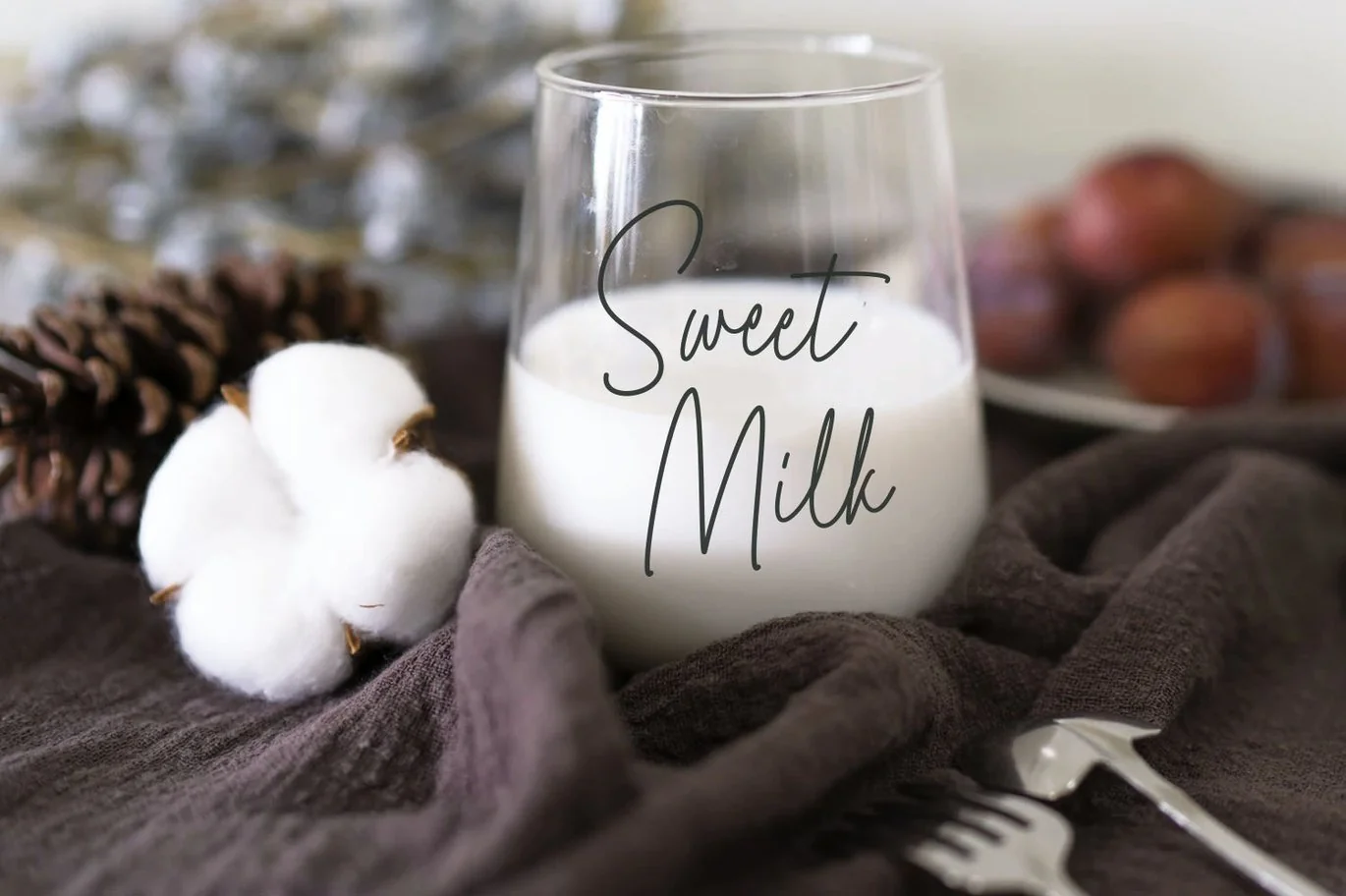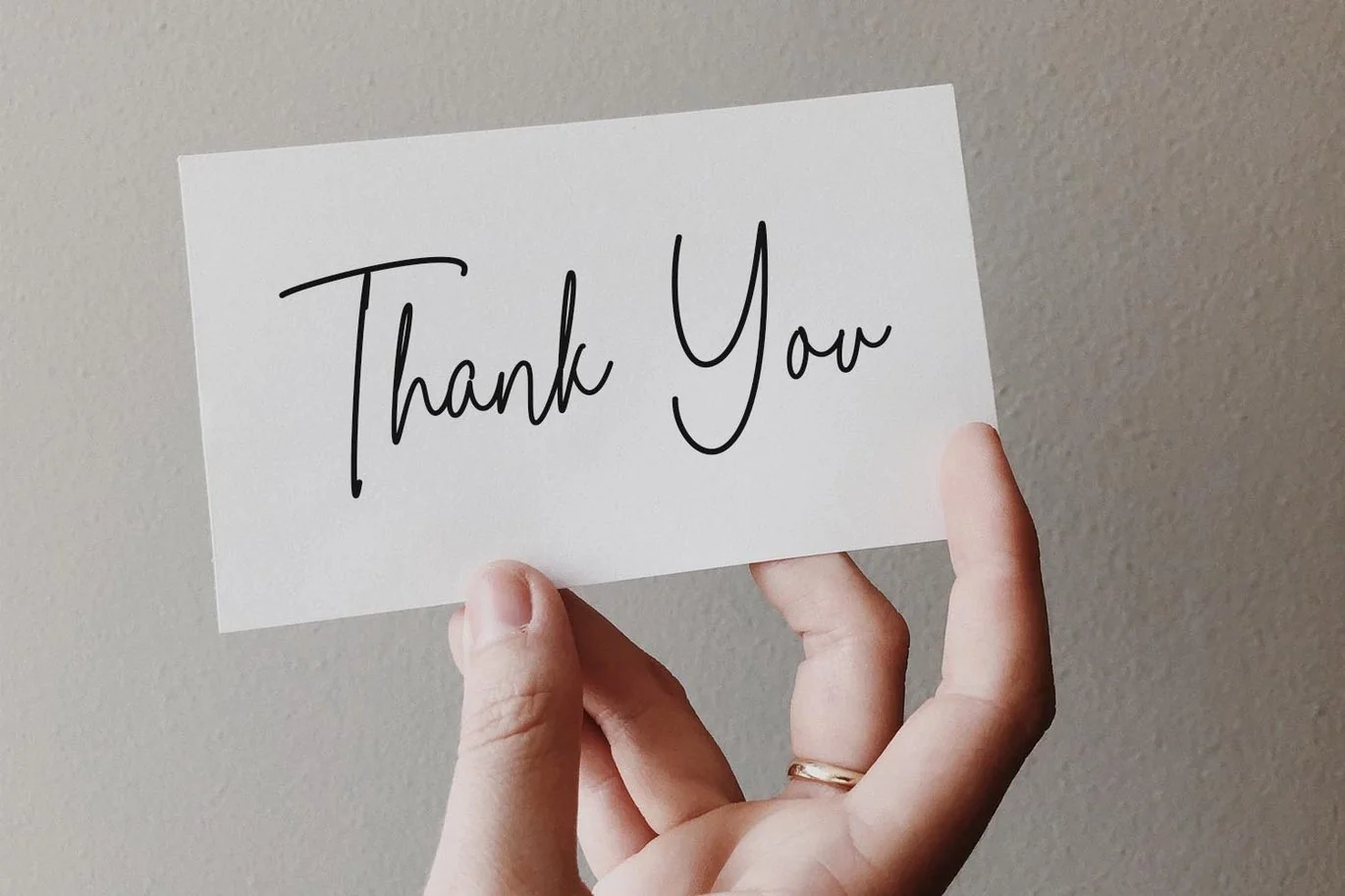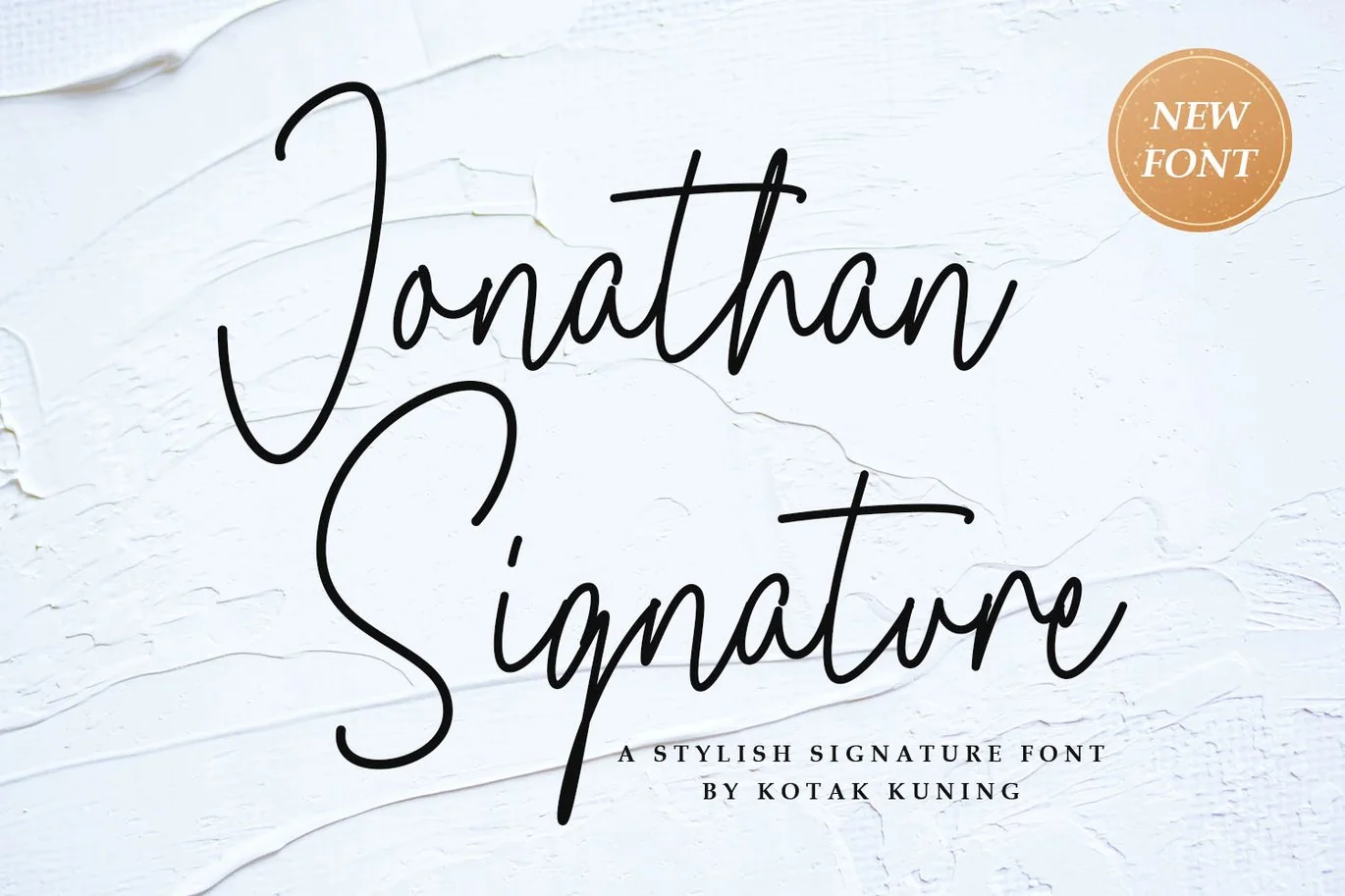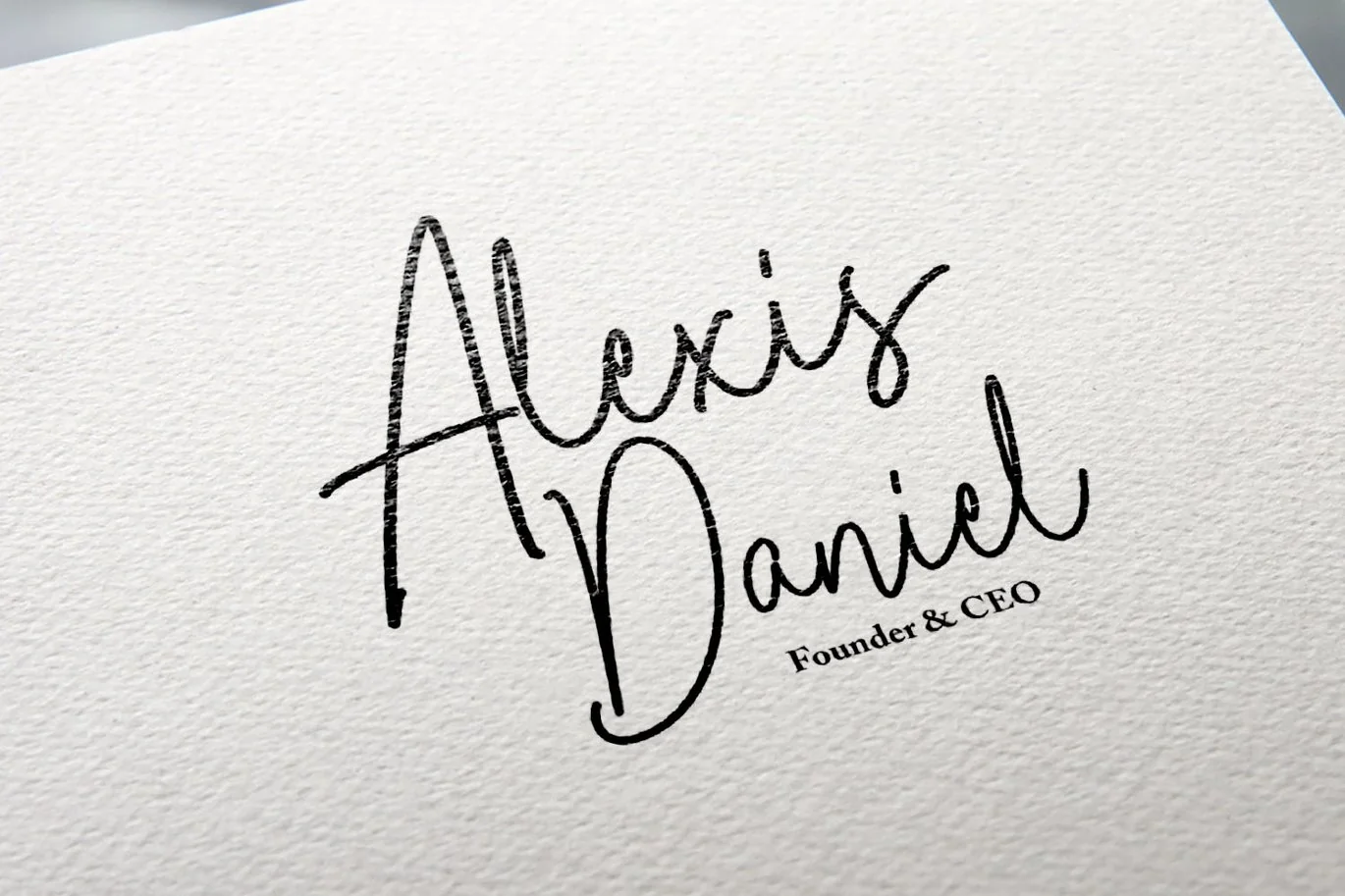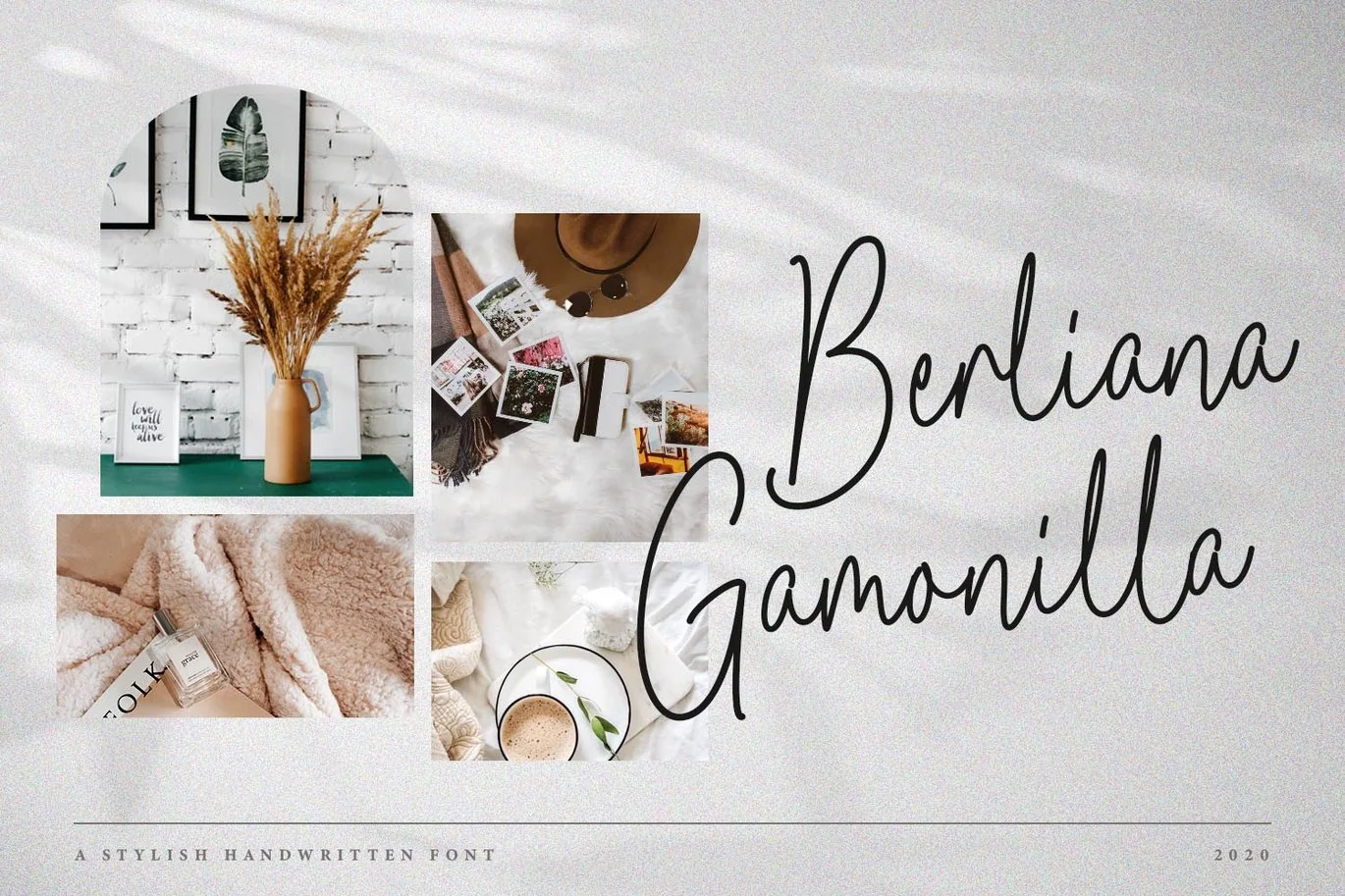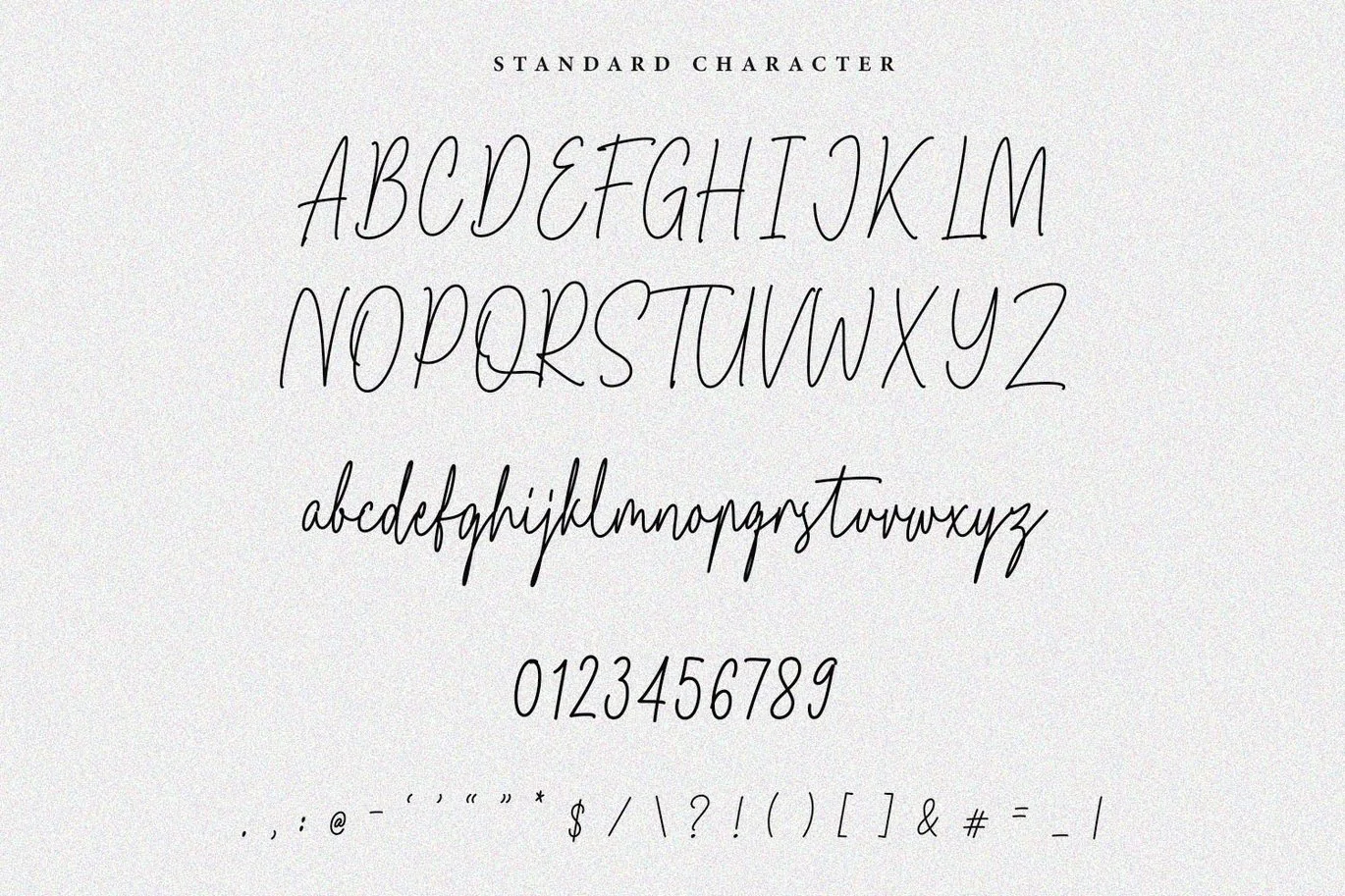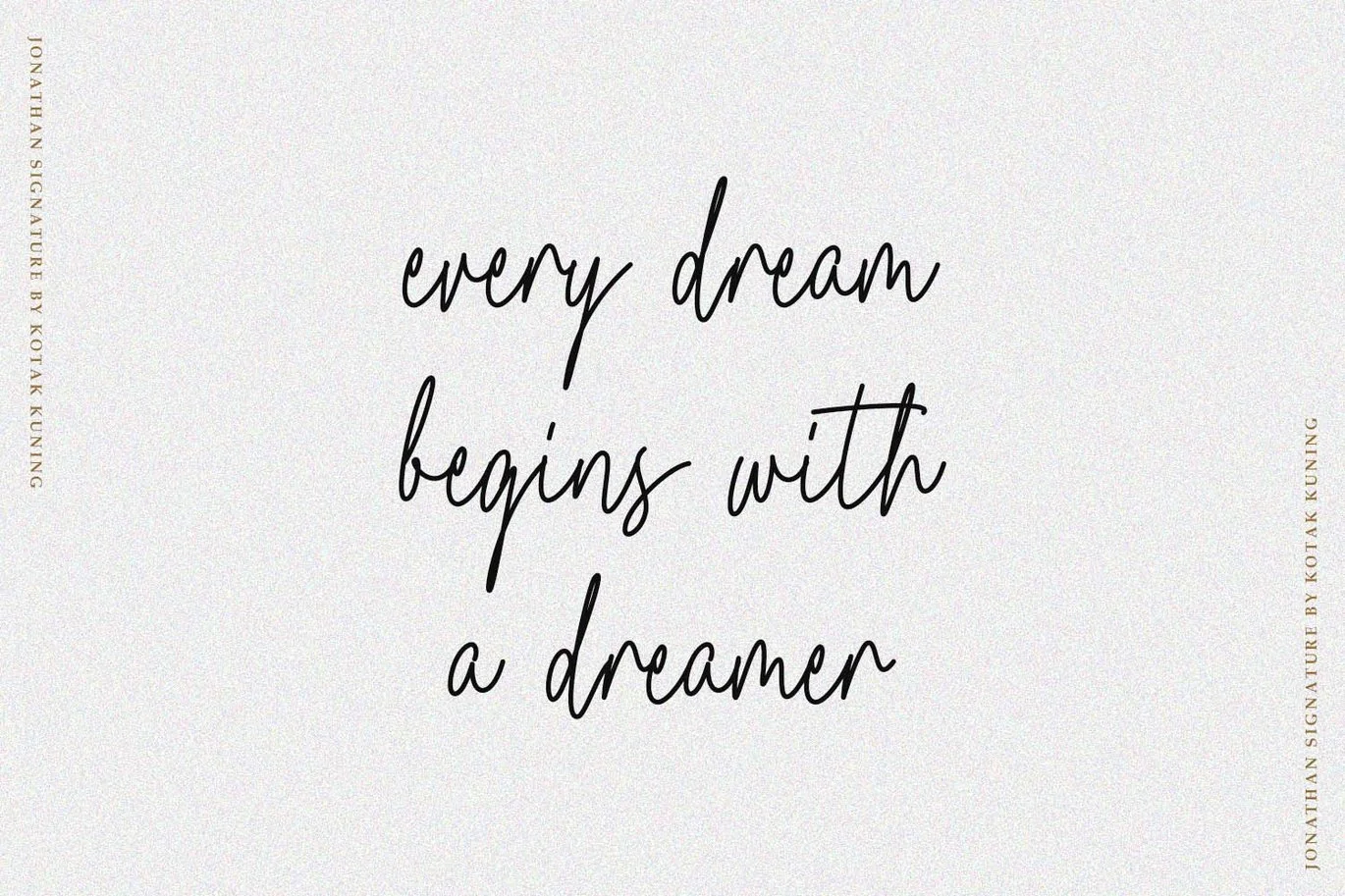
Jonathan Signature Font
Jonathan Signature is a handwritten signature script with a natural & stylish flow. This font has a multitude of natural-looking ligatures in its OpenType features – making the font look as close to natural handwriting as possible. This collection of scripts is perfect for personal branding.
Jonathan Signature Font is perfect for many different projects such as logos & branding, invitation, stationery, wedding designs, social media posts, advertisements, product packaging, product designs, label, photography, watermark, special events, or anything.